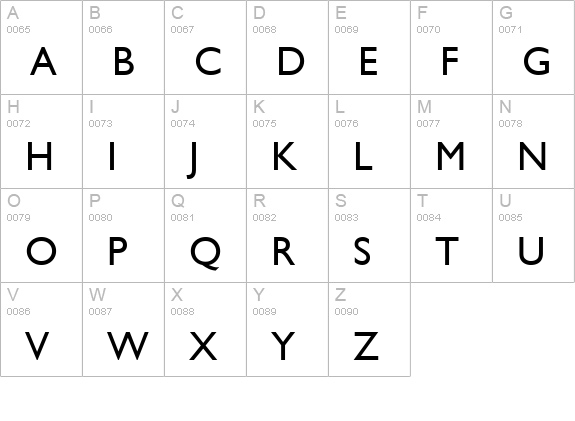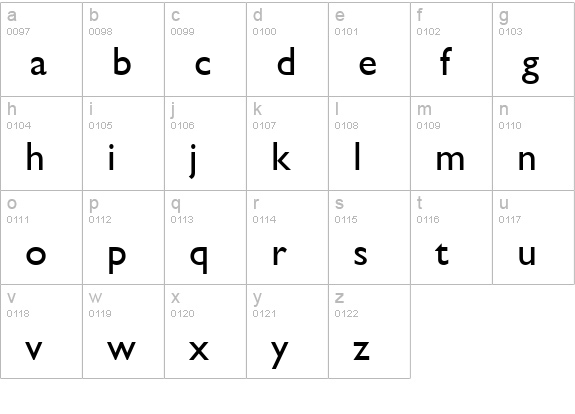
Gill SSi font is a classic and timeless typeface that exudes elegance and sophistication. Its clean lines and balanced proportions make it perfect for a wide range of design projects, from branding to editorial design. The font's versatility allows it to be used in both traditional and modern settings, making it a favorite among designers and creatives. The best part? Gill SSi font is completely free to download at FontsMarket.com. This means you can easily access this high-quality font without any cost, making it a valuable addition to your font library. Whether you're working on a print project, digital design, or anything in between, Gill SSi font is sure to elevate your work with its timeless appeal and professional finish. Download it today and see for yourself the impact this beautiful font can have on your designs.